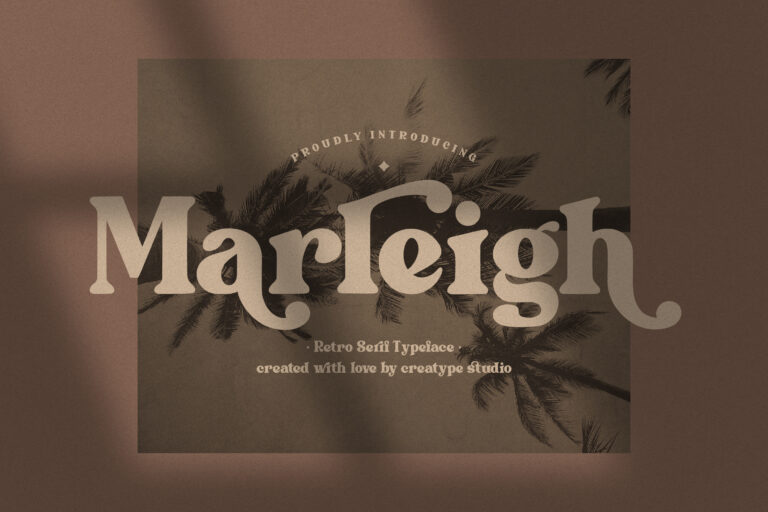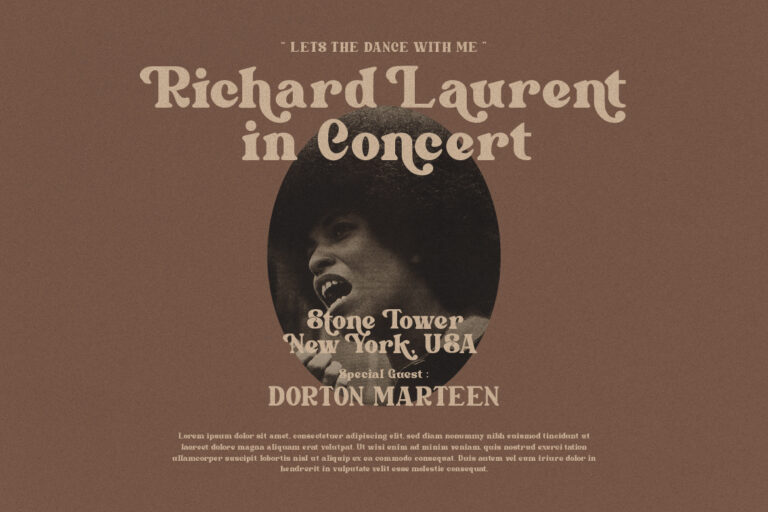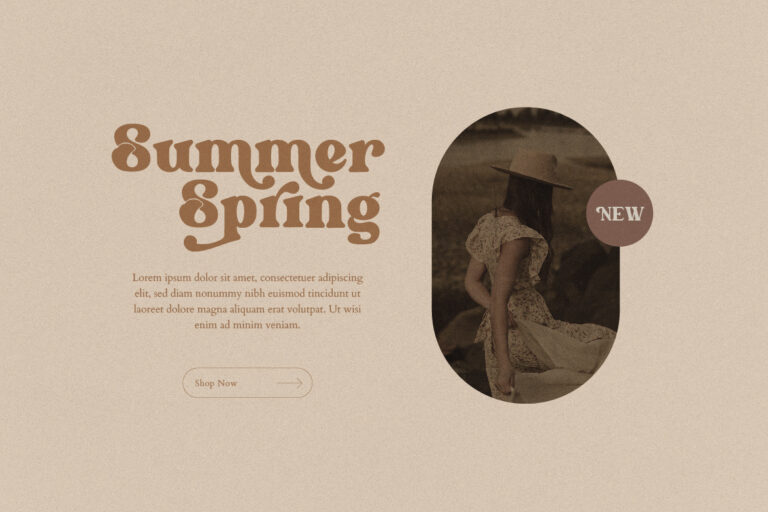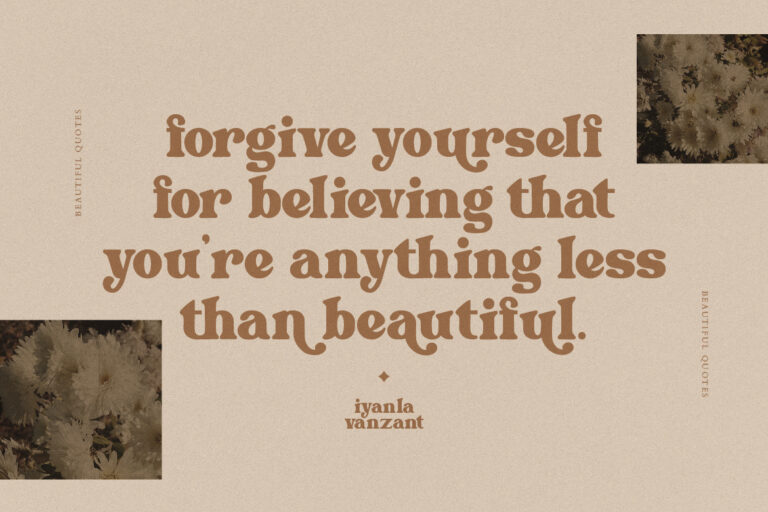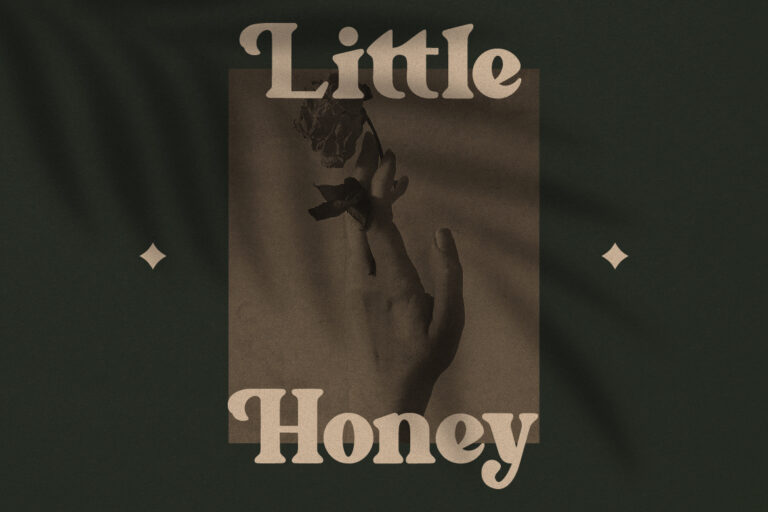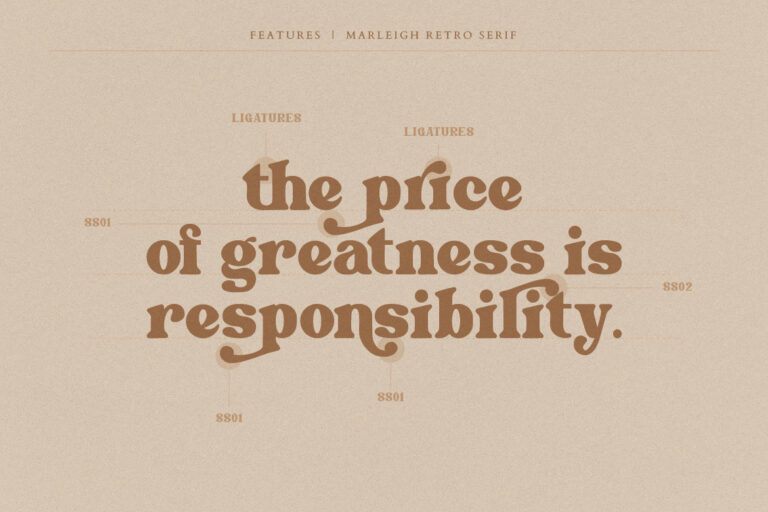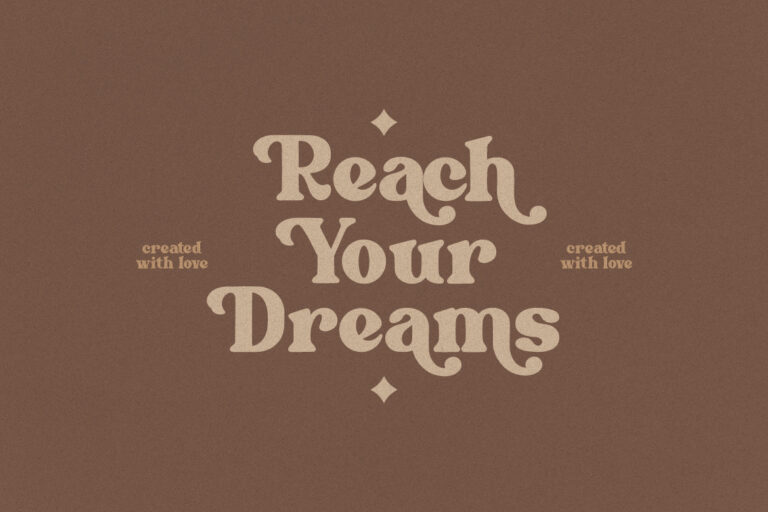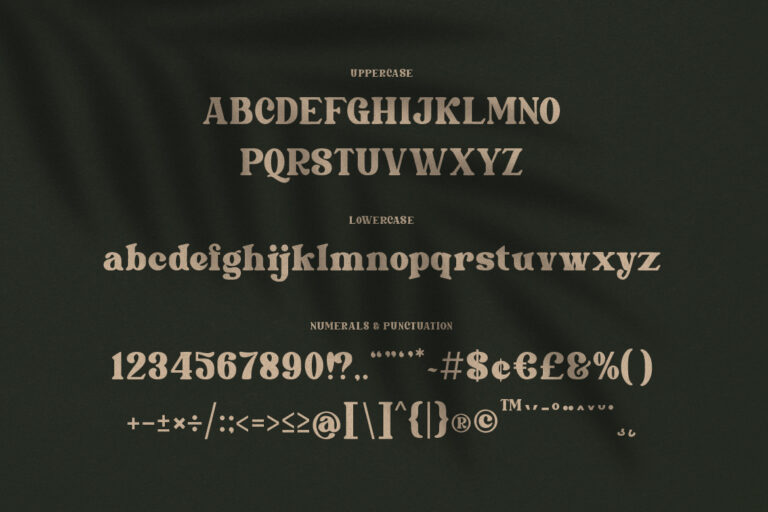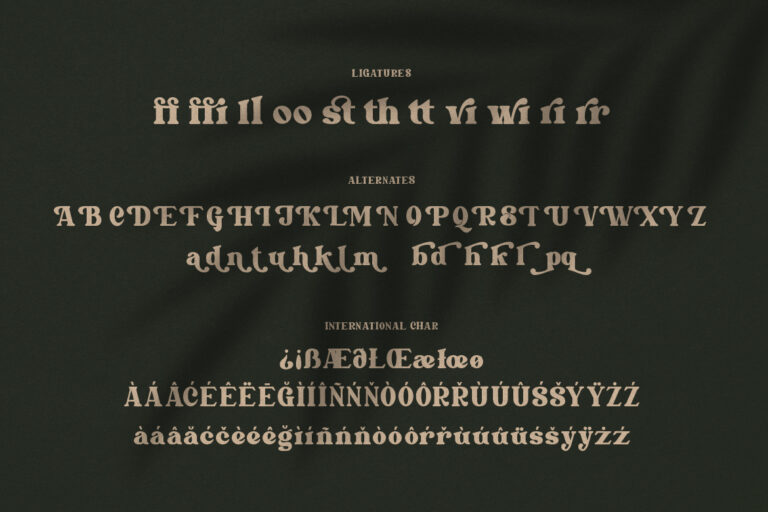
Marleigh is a retro serif style font. The thick shape makes Marleigh appearance so stylish as if it brings us to the era of the 70s – 90s. The Marleigh font is very easy for customers to remember.
Marleigh Retro Serif